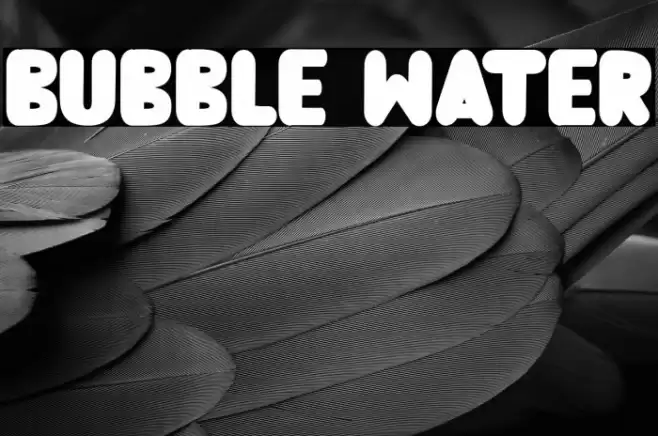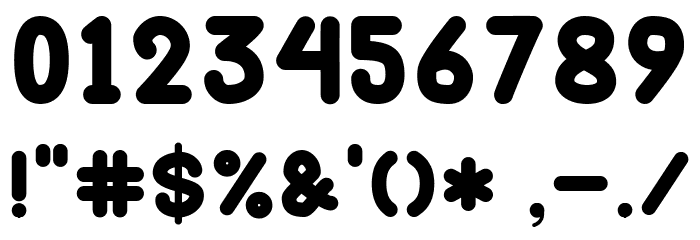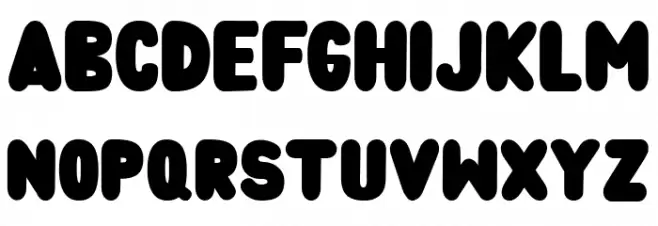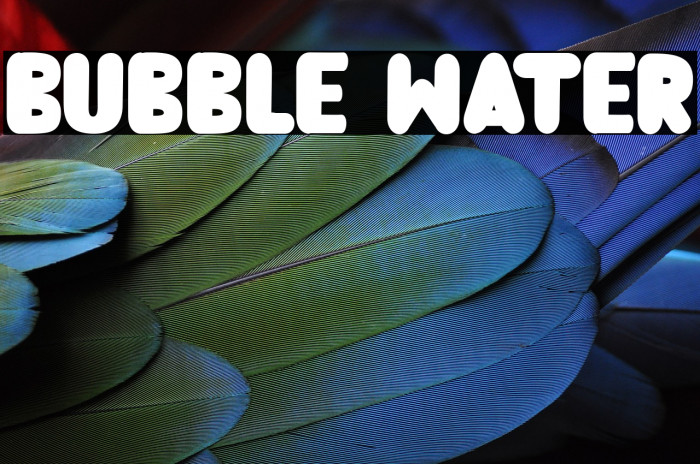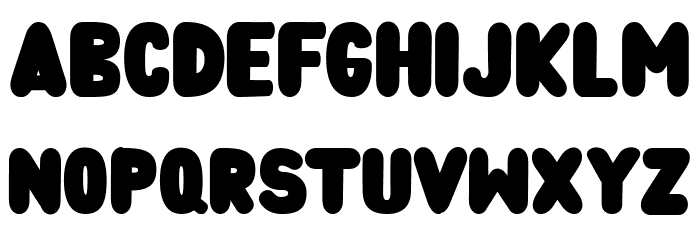
Bubble Water Font
Bubble Water Description
This playful and bold font features rounded, bubble-like characters that exude a sense of fun and whimsy. The letters are thick and uniform, with smooth curves and a consistent stroke width that gives them a friendly and approachable appearance. The font is highly legible, making it suitable for a variety of creative applications. Its distinctive style is reminiscent of retro designs, yet it maintains a modern flair that can appeal to contemporary audiences. The numbers and special characters are crafted with the same bubbly aesthetic, ensuring a cohesive look across all text elements.
A playful, bold font with rounded, bubble-like characters from Cartoon fonts.
- Proposed Projects: Ideal for children's books, playful branding, party invitations, and eye-catching posters.
- Overall Style: Playful, Modern, Retro